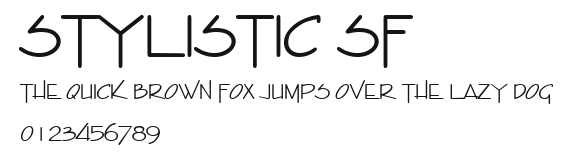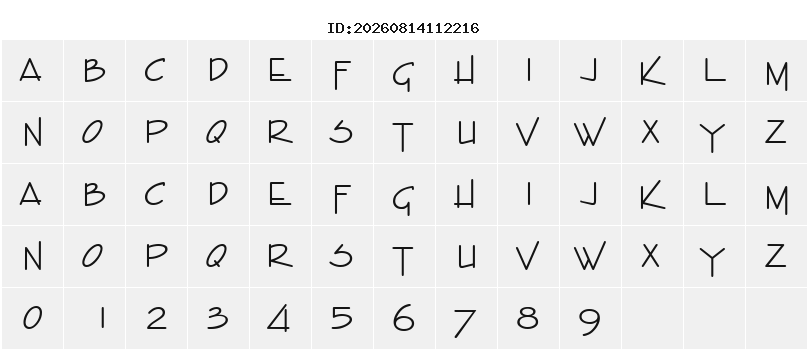
• Font Name: Stylistic SF
• Full Font Name: Stylistic SF
About Stylistic SF.ttf
Stylistic SF.ttf is a modern, elegant sans-serif font designed for ultimate readability and visual harmony. Perfect for branding, headlines, web design, and print materials.